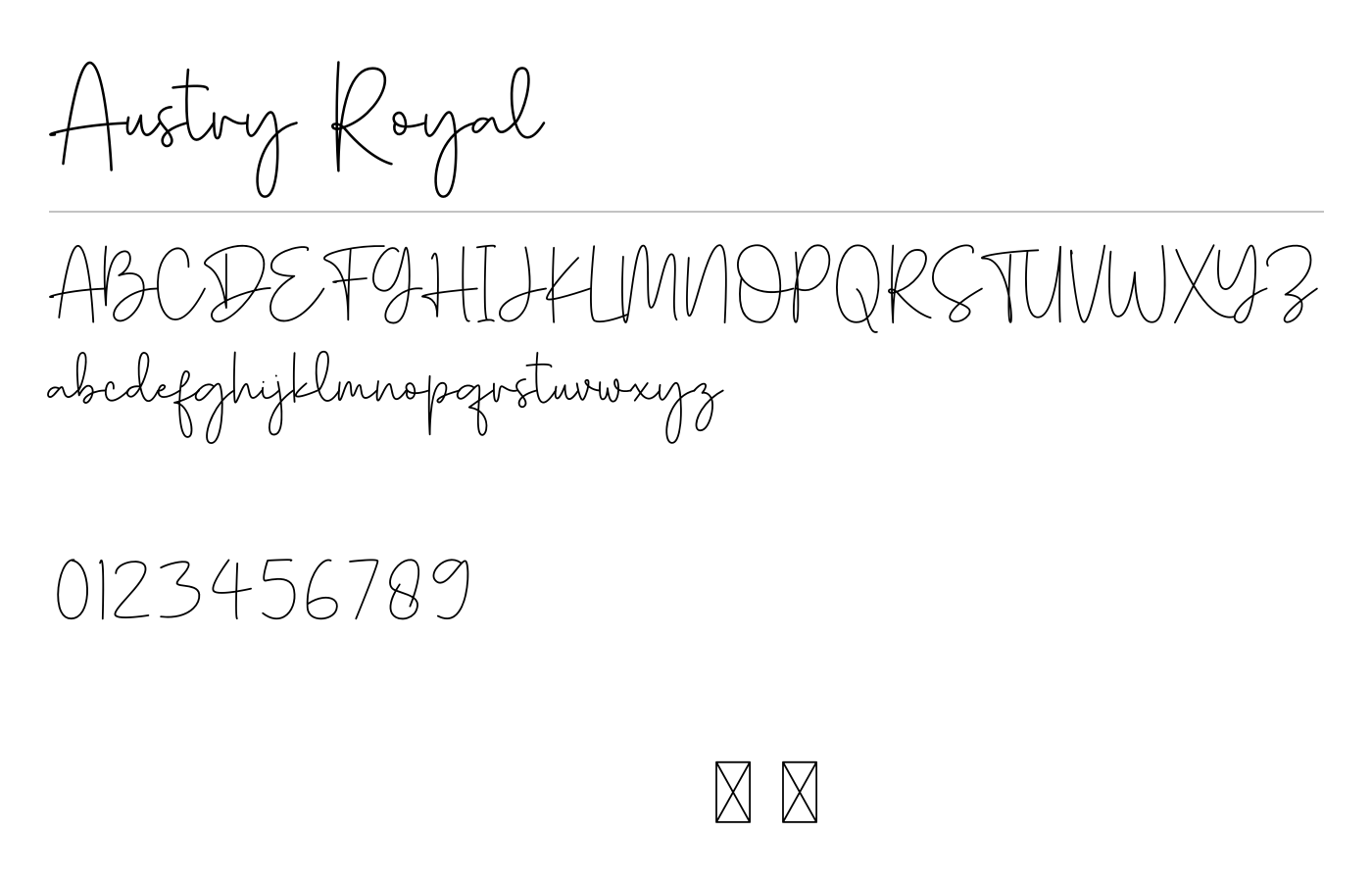
Austry Royal is a delicate, handwritten script font characterized by its tall, slender letterforms and fine, consistent strokes. Its elegant, playful style with looping lines and smooth curves makes it ideal for creative and personal branding, invitations, or lifestyle content where a friendly yet refined touch is desired. This font stands out in designs that require a light, airy feel with a casual but sophisticated personality.
Austry Royal Font
About Austry Royal Font
| Font family | Austry Royal Font |
| Designer | Alvaro Ariel Ilanunu |